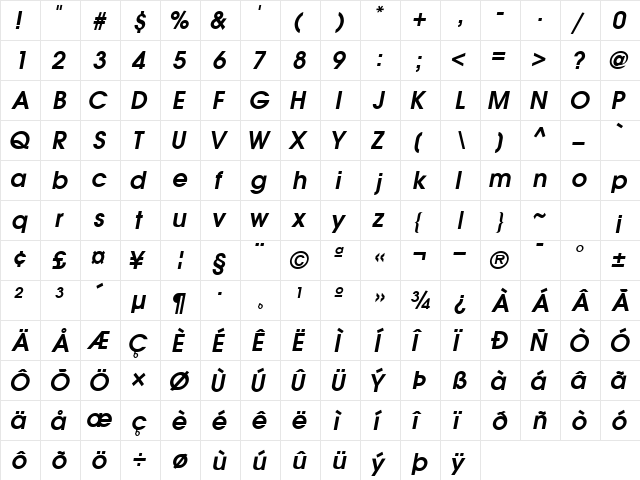
TrendexSSK Bold Italic
Design Context for TrendexSSK Typeface
TrendexSSK is a composed and adaptable typeface that performs quietly and consistently across a wide range of design contexts. The dynamic lean of this cut emphasises speed and emphasis in any layout. The heavy weight commands attention and anchors typographic hierarchies.
Pro Tip: Use TrendexSSK for emphasis, pull quotes, and subheadings where its slanted energy can add rhythm to the layout.